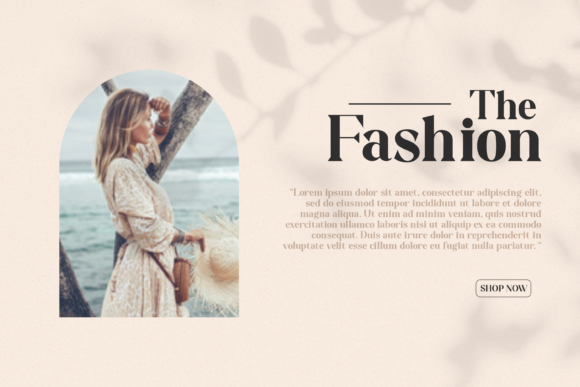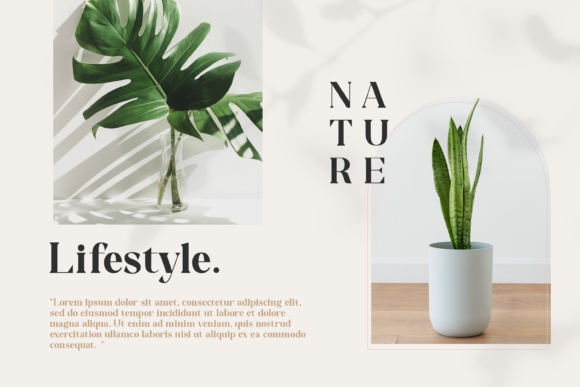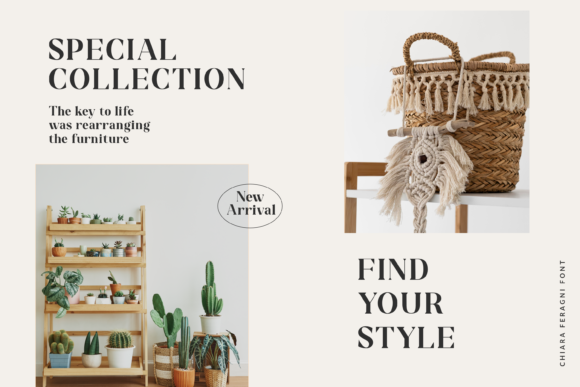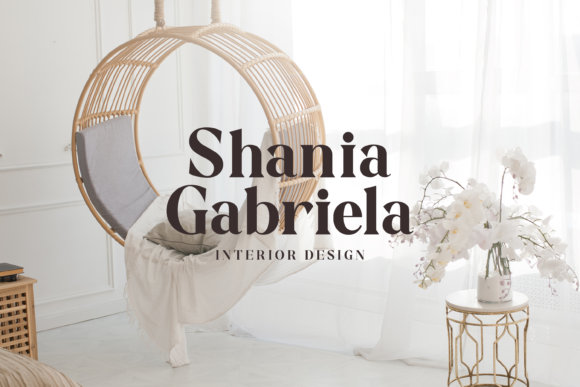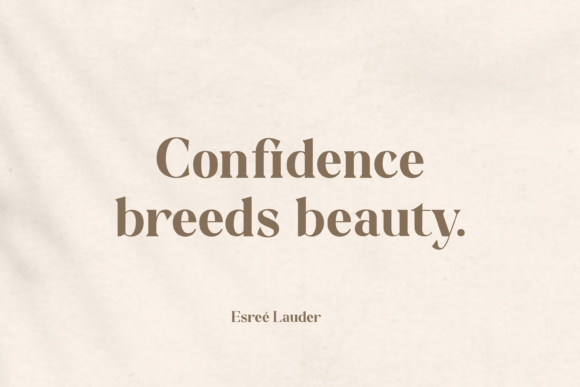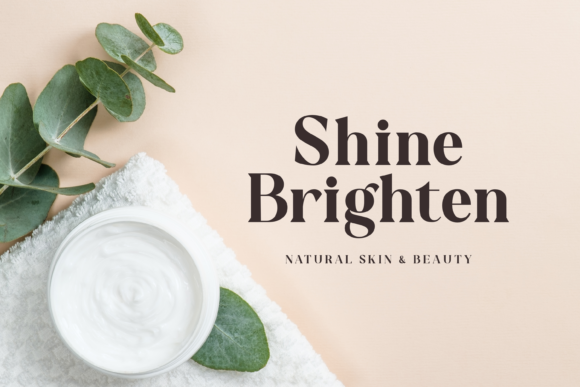
Introducing Chiara Feragni Font: The Perfect Serif Font for Your Design Projects
Are you tired of using the same old fonts for your design projects? Look no further! Chiara Feragni Font is here to revolutionize the way you approach typography. This authentic and beautiful serif font is designed to enhance the beauty of your projects, making it a must-have for designers and crafters alike.
What Makes Chiara Feragni Font So Special?
Chiara Feragni Font is not just another font; it’s a game-changer. Here are some of its unique features that set it apart from other fonts:
- Balanced and Varied: Chiara Feragni Font strikes the perfect balance between thickness and thinness, making it easy to read and visually appealing.
- Not Too Thin, Not Too Thick: Unlike other serif fonts, Chiara Feragni Font is neither too thin nor too thick, making it perfect for a wide range of design projects.
- Authentic and Beautiful: This font is designed to add a touch of elegance and sophistication to your projects, making it perfect for designers and crafters who want to create something truly special.
The Design Behind Chiara Feragni Font
Chiara Feragni Font is designed with the user in mind. The font’s creator has carefully crafted each letter to ensure that it is not only aesthetically pleasing but also highly legible. The font’s design is inspired by traditional serif fonts, but with a modern twist that makes it perfect for contemporary design projects.
Why Choose Chiara Feragni Font?
With so many fonts available, why choose Chiara Feragni Font? Here are just a few reasons why designers and crafters are falling in love with this font:
- Versatility: Chiara Feragni Font is perfect for a wide range of design projects, from branding and advertising to packaging and digital design.
- Elegance: This font adds a touch of elegance and sophistication to any project, making it perfect for designers who want to create something truly special.
- Easy to Read: Chiara Feragni Font is highly legible, making it perfect for body text and other applications where readability is key.
How to Use Chiara Feragni Font in Your Design Projects
Using Chiara Feragni Font in your design projects is easy. Here are a few tips to get you started:
- Pair it with Other Fonts: Chiara Feragni Font pairs perfectly with other fonts, making it easy to create visually appealing typography.
- Use it for Headings and Body Text: This font is perfect for both headings and body text, making it a versatile addition to any design project.
- Experiment with Different Sizes and Colors: Chiara Feragni Font looks great in a variety of sizes and colors, so don’t be afraid to experiment and find the perfect look for your project.
| Font Name | Chiara Feragni Font |
| Author | Letterflow Studio |
Chiara Feragni Font is a game-changing serif font that is perfect for designers and crafters who want to add a touch of elegance and sophistication to their projects. With its balanced and varied design, this font is easy to read and visually appealing, making it perfect for a wide range of design projects. Whether you’re working on a branding project, packaging design, or digital design, Chiara Feragni Font is the perfect choice.